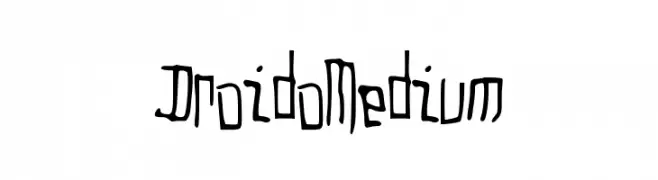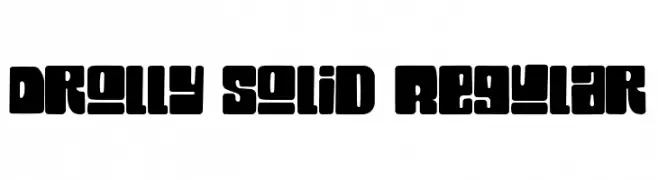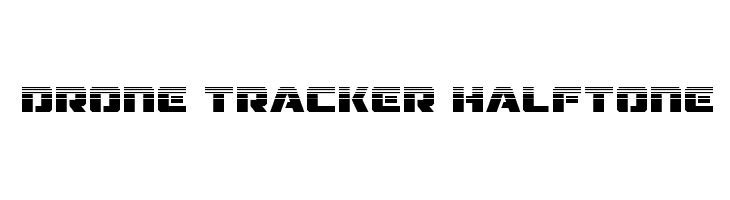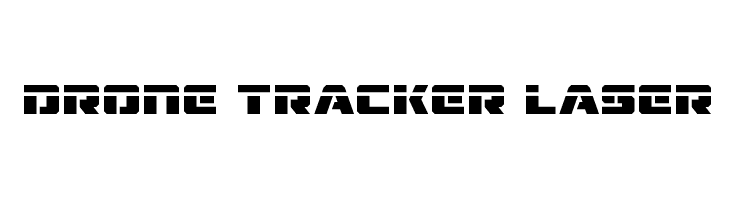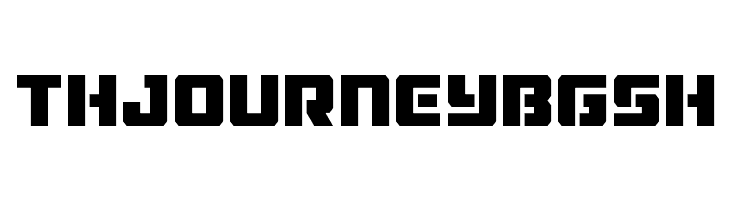
A modern, hand-drawn font with a quirky, artistic style.
A whimsical, hand-drawn font with playful, irregular strokes.
A bold, highly readable serif font with modern proportions.
A bold, playful font with thick, rounded characters and a retro-modern style.
Iconic font with drone and technology-themed symbols.
Bold, geometric font with a modern, angular design.
A bold, geometric outline font with a modern, blocky design.
A bold, geometric font with a 3D effect and strong visual impact.
A bold, geometric font with a futuristic and industrial style.